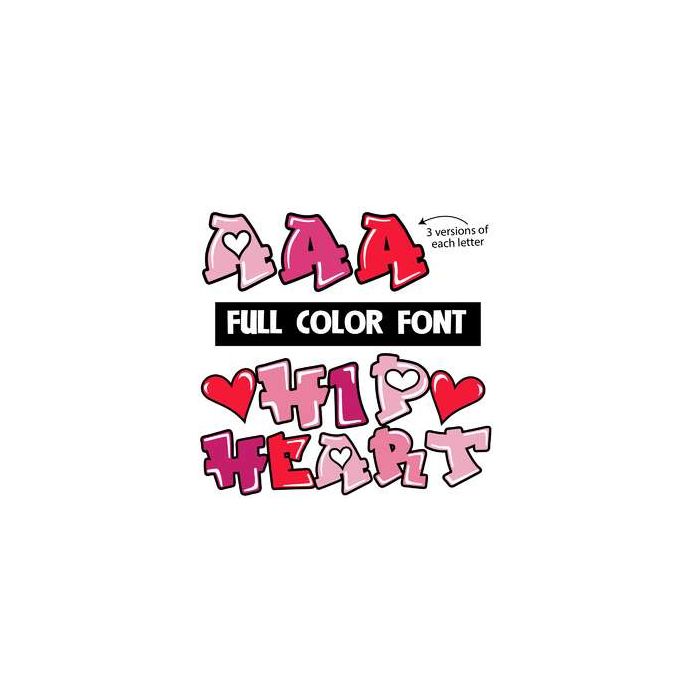
This full-color font features graffiti style lettering with hearts in the uppercase. There is a second alt-uppercase without hearts. This font works best for titles, displays, posters and more. Please note color fonts will show as black in non compatible programs. This font type is compatible with Silhouette Studio.